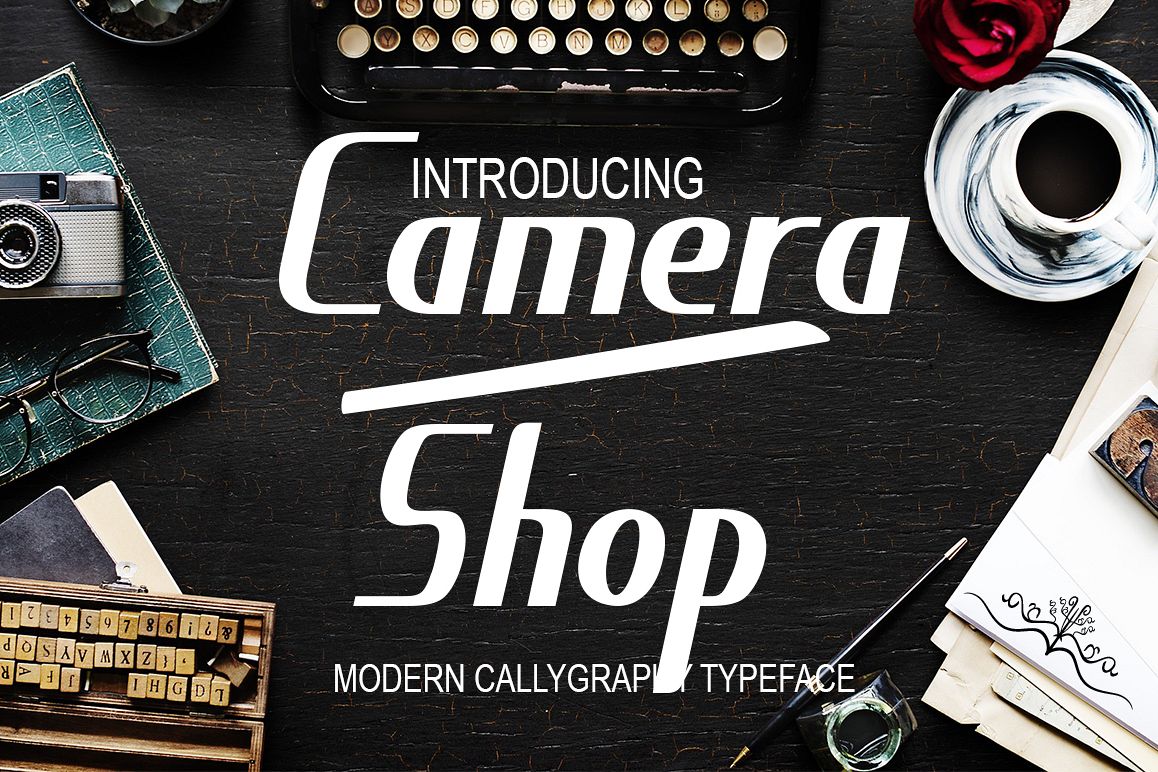
Camera shop
camera shop
Camera shop script Calligraphy. This font was designed by handwriting, and it has a modern and unique forms of calligraphy, the writing style is very natural.The Features of this fonts is;
• Standart ligatures
• Contextual Alternates
• Stylistic sets
• swash